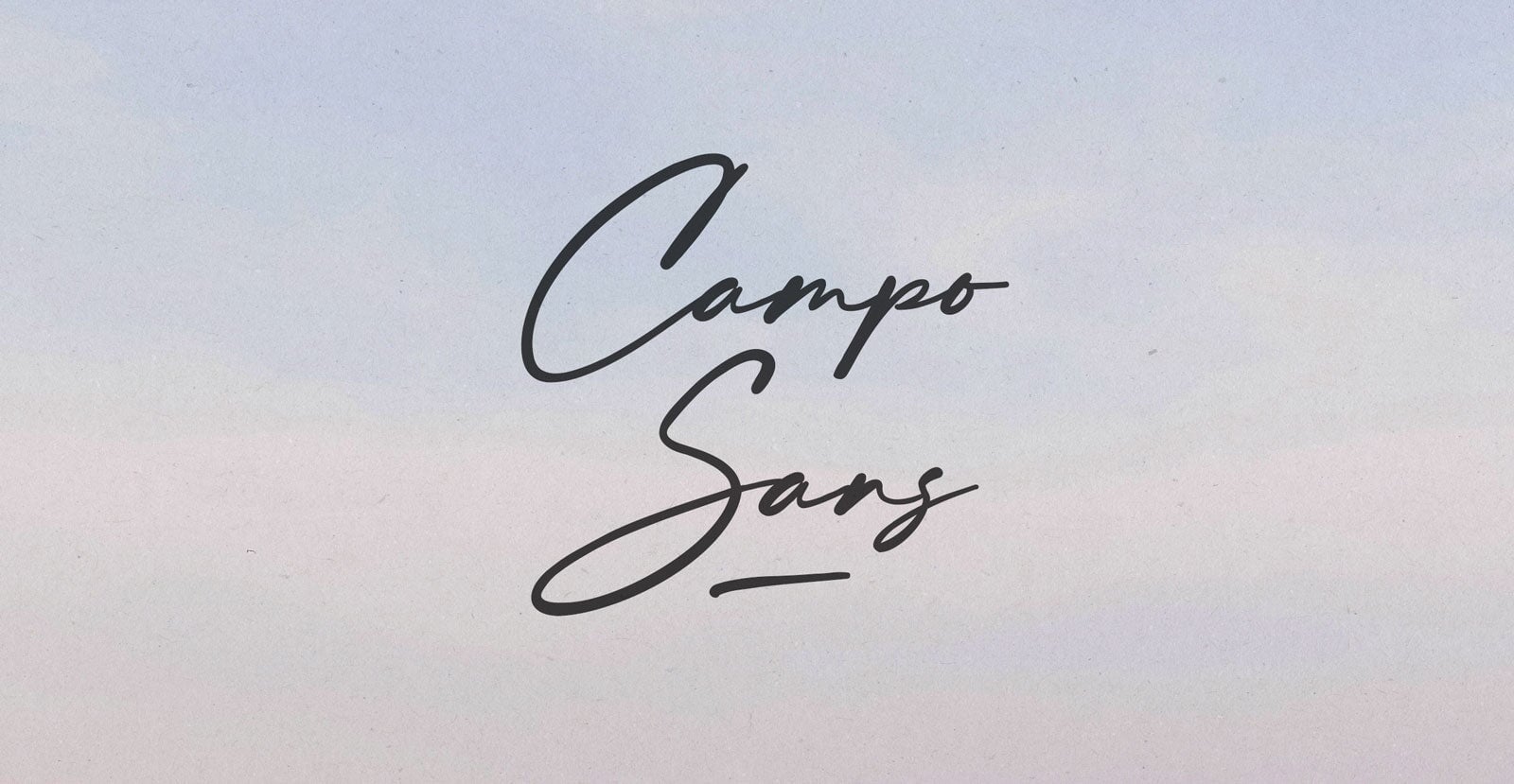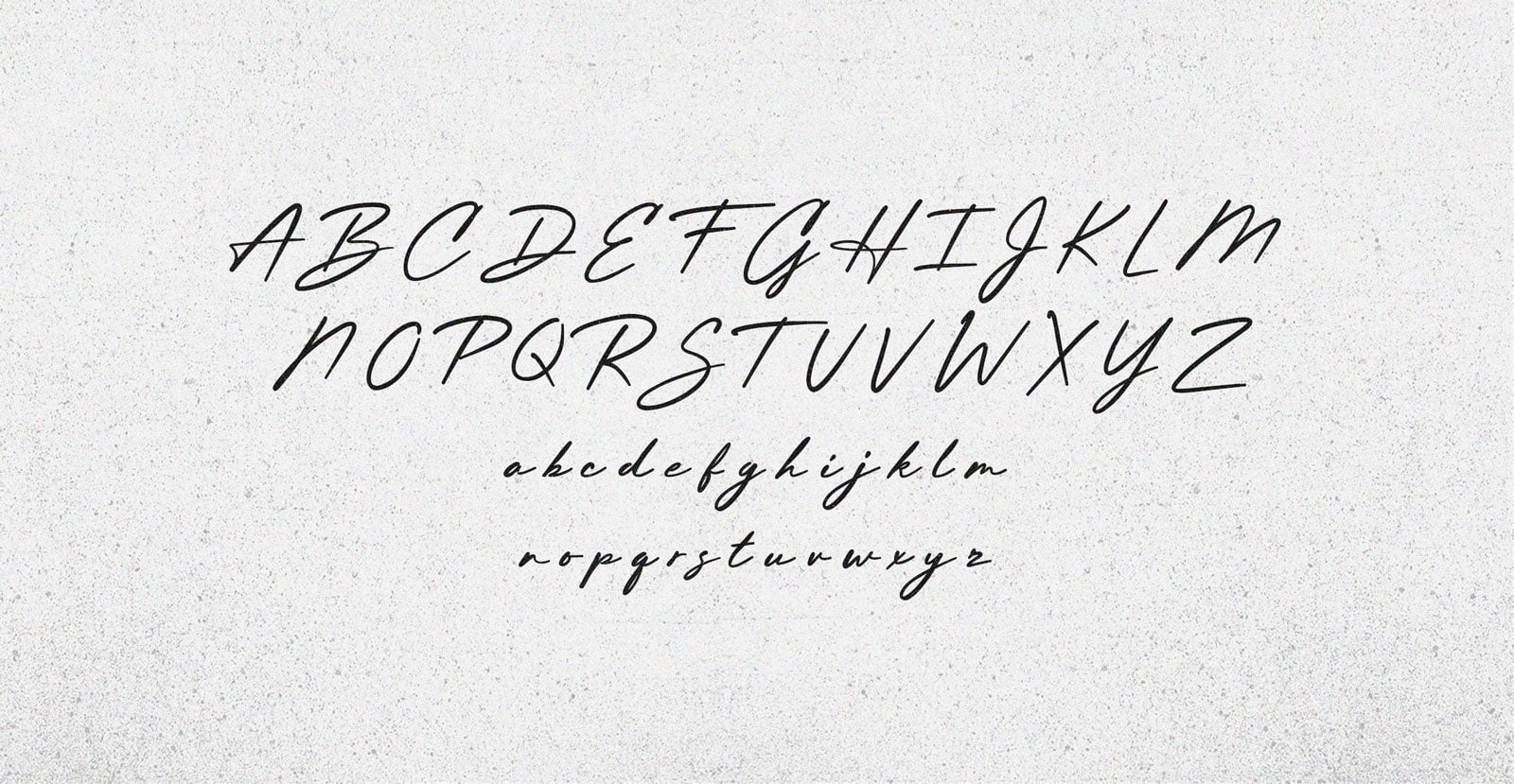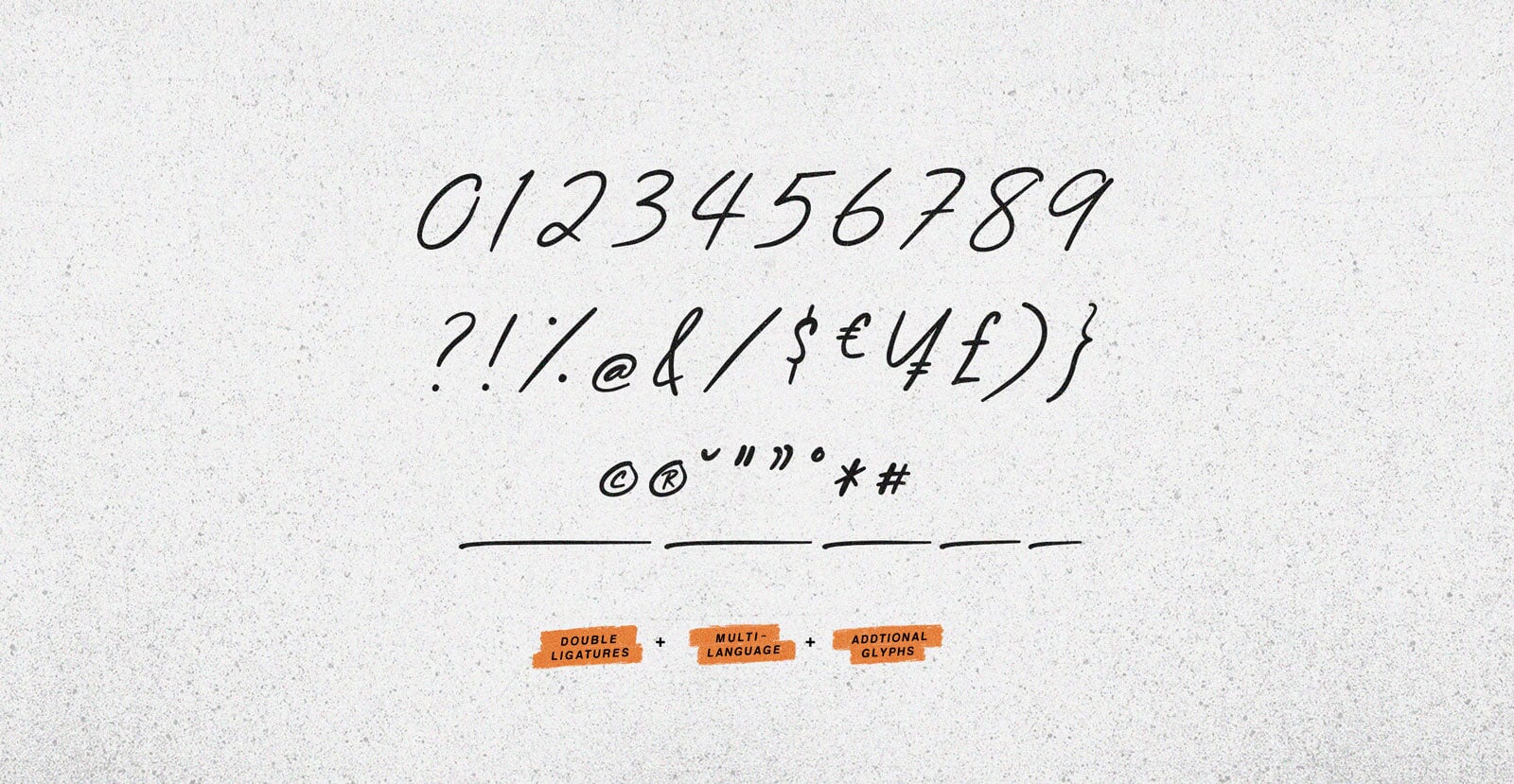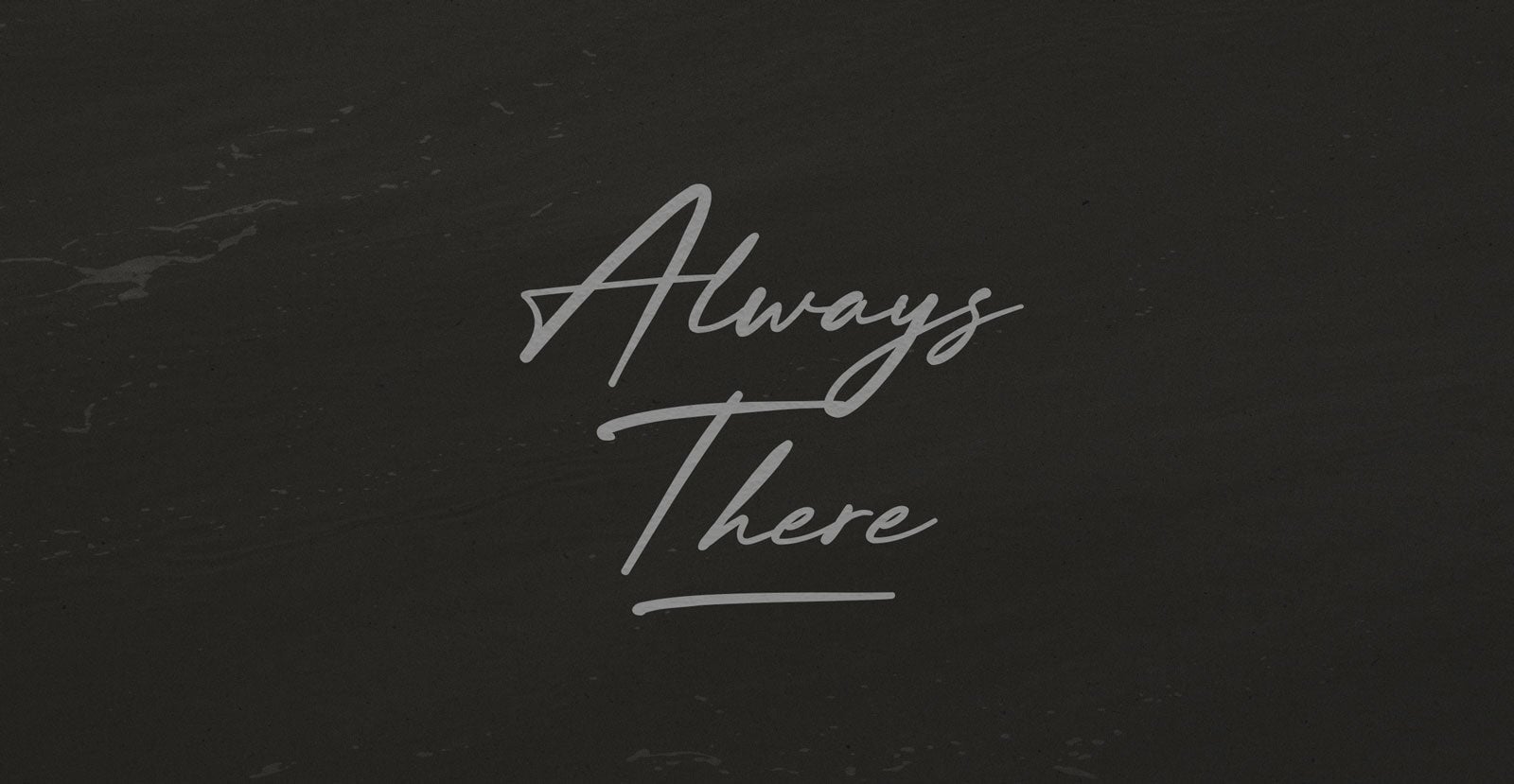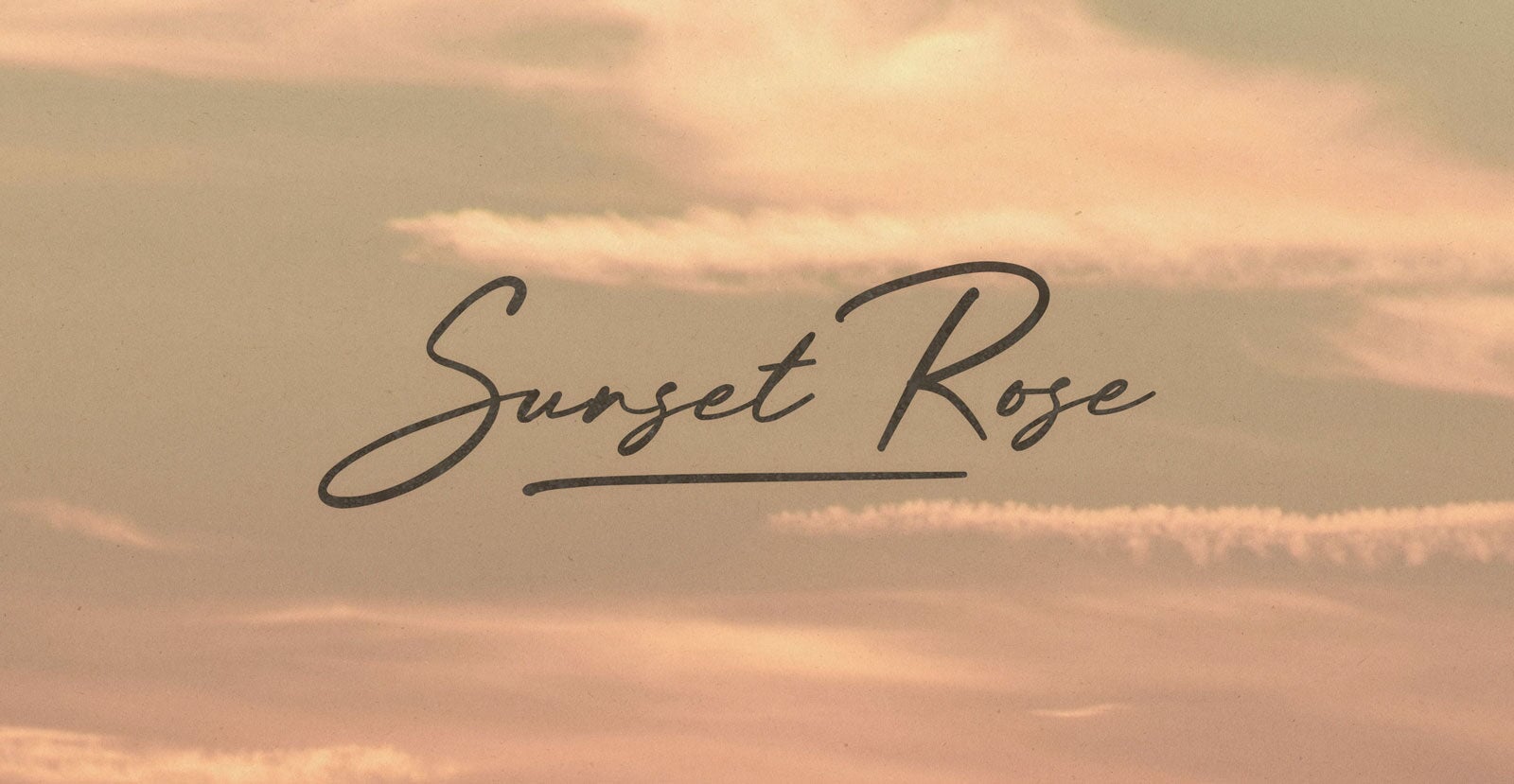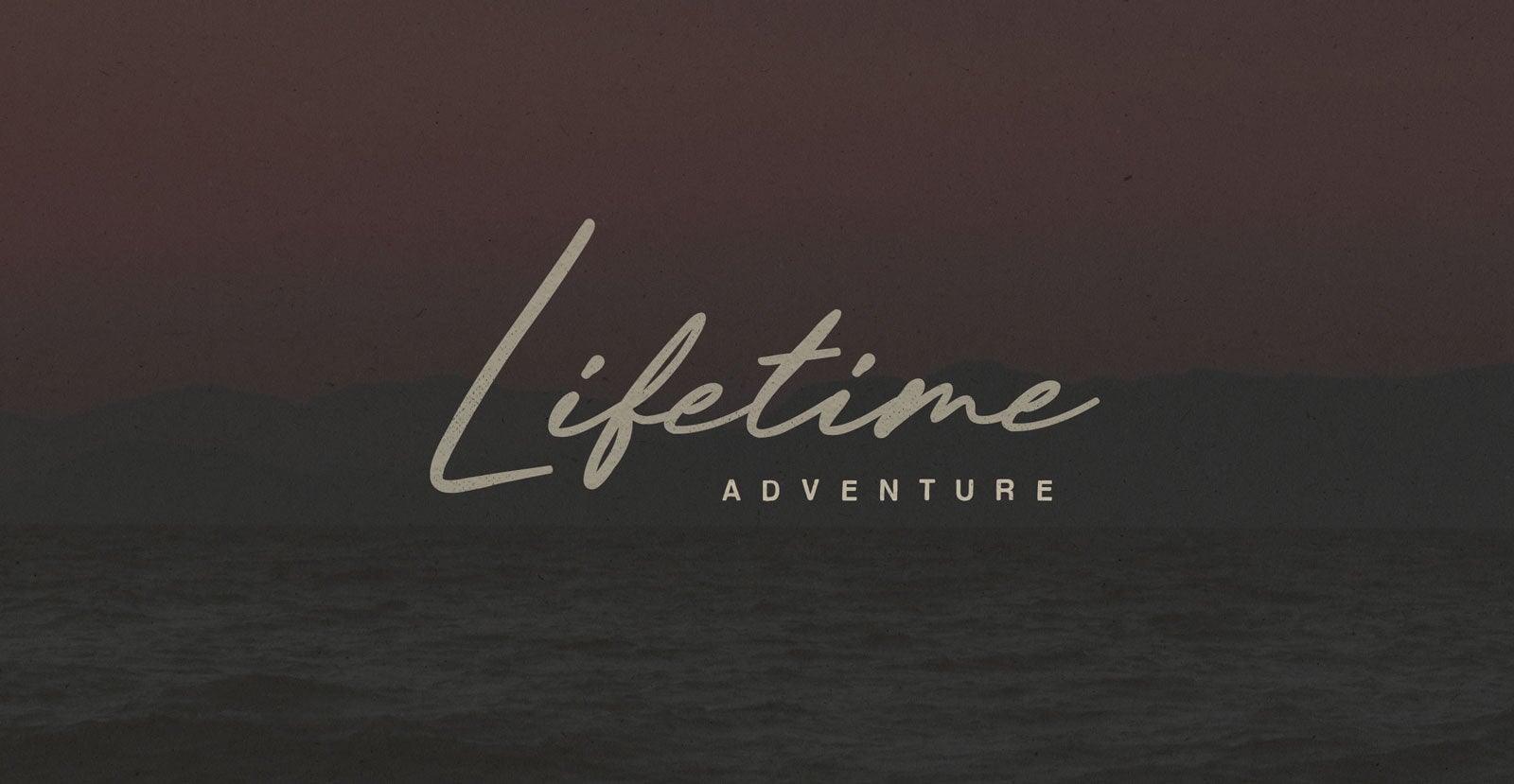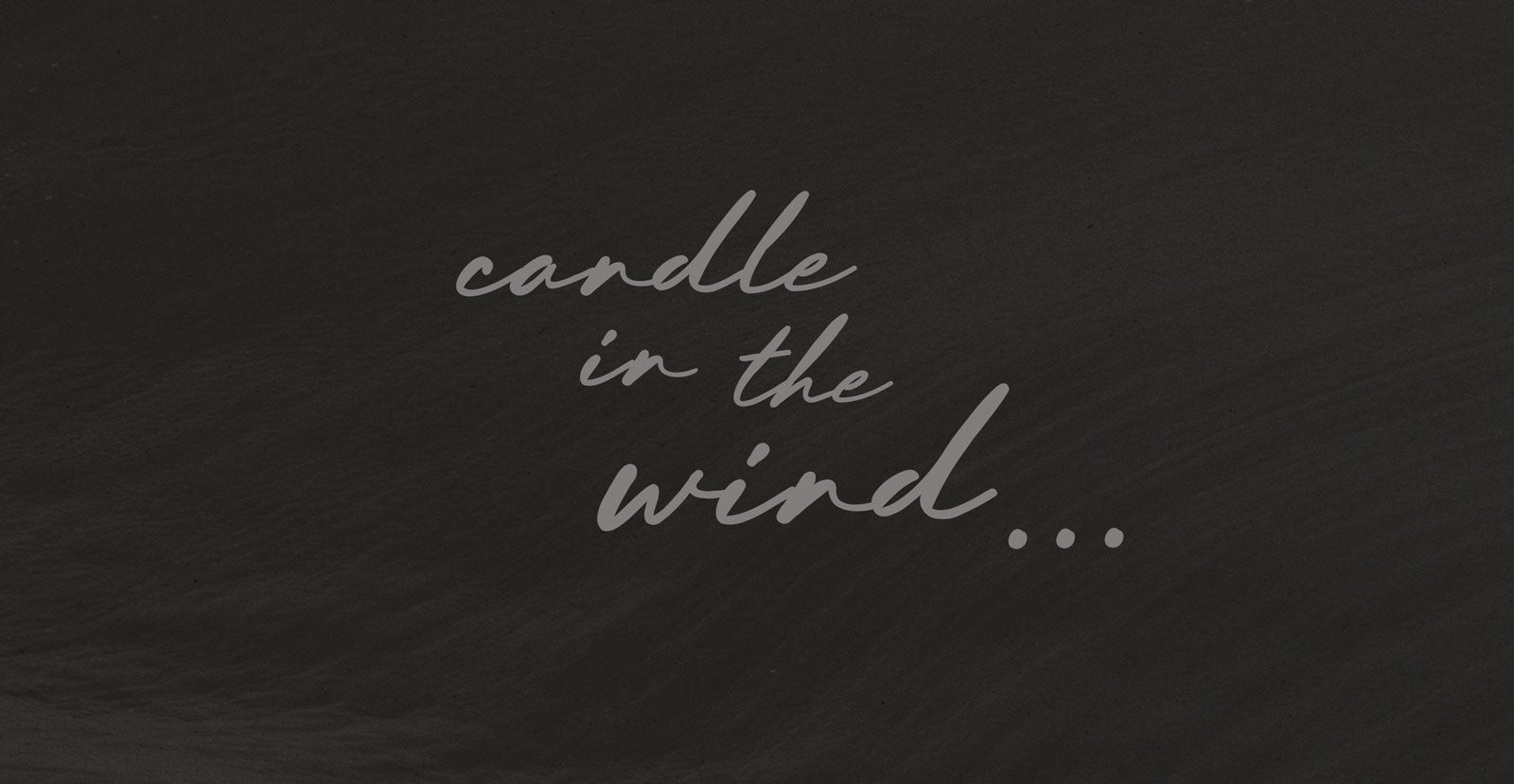
Campo Sans
Handwritten Pen Script Font
Shadows stretch differently here, and the air carries whispers you can’t quite place. Every corner hints at a story, every step pulls you deeper. It doesn’t offer answers. It tempts you with questions.